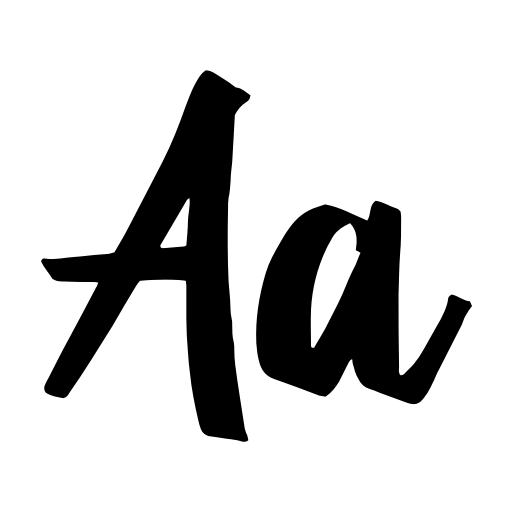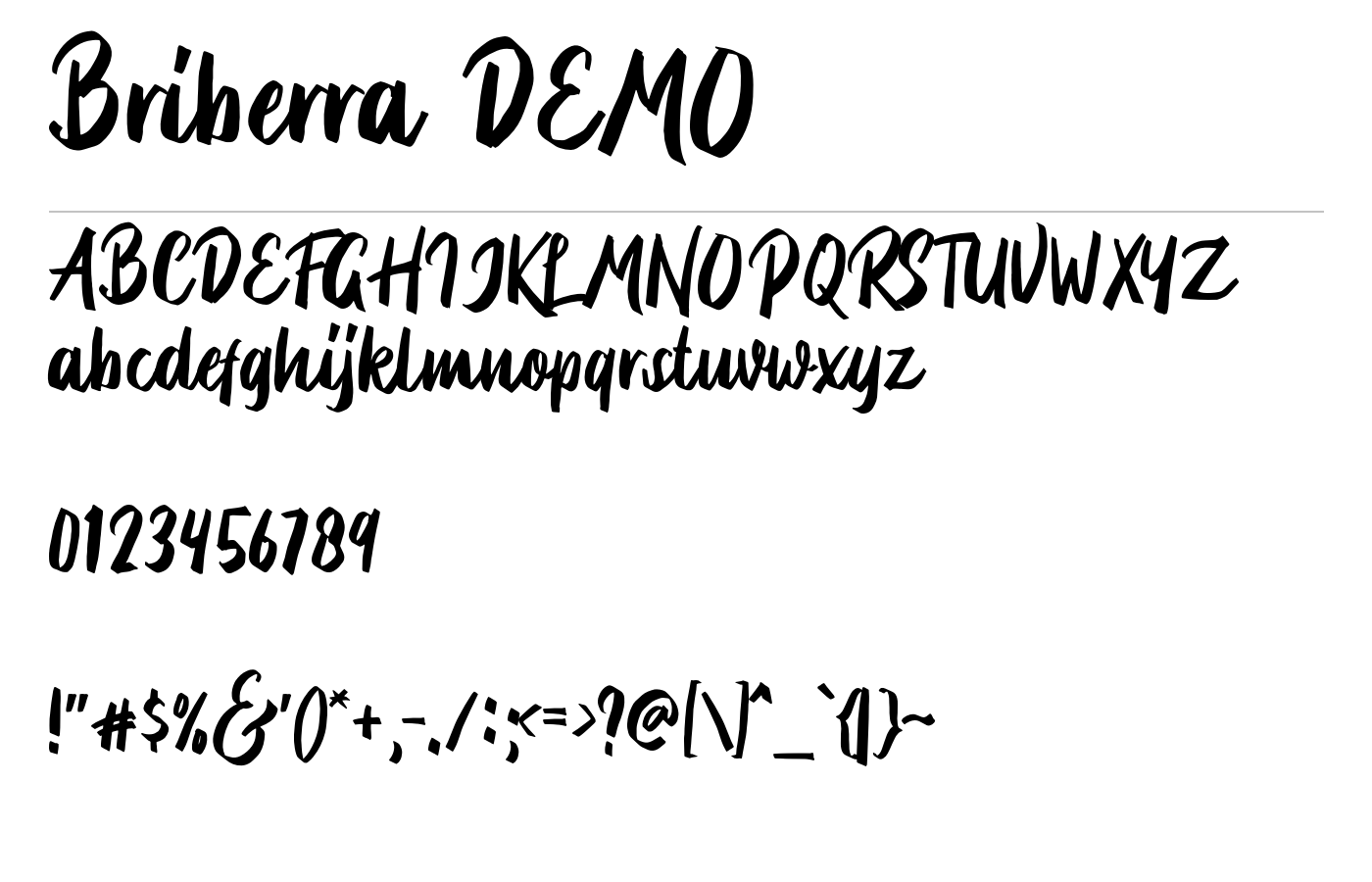
Briberra DEMO is a lively script font with a hand-painted feel, combining a casual brushstroke style with varying stroke widths that add energy and personality. Its slightly condensed letterforms and dynamic character shapes make it ideal for bold, eye-catching designs like logos, posters, and branding where a playful yet confident mood is desired. This font works best for creative projects that aim to convey warmth and authenticity while maintaining a modern, artistic edge.
Briberra DEMO Font
About Briberra DEMO Font
| Font family | Briberra DEMO Font |
| Designer | Sarid Ezra |